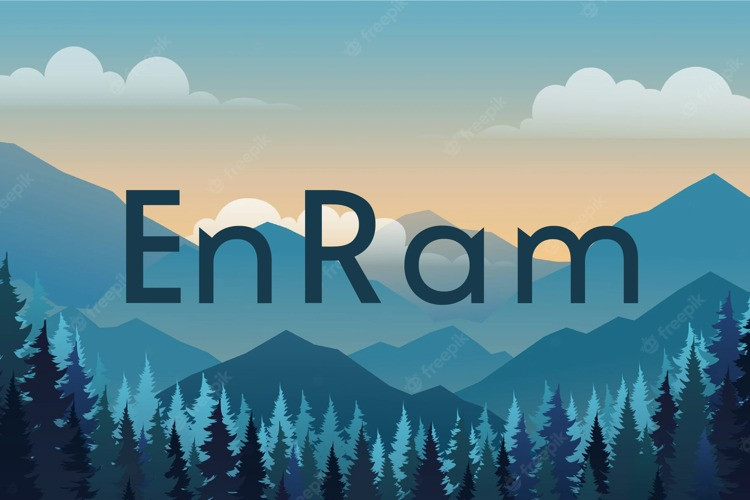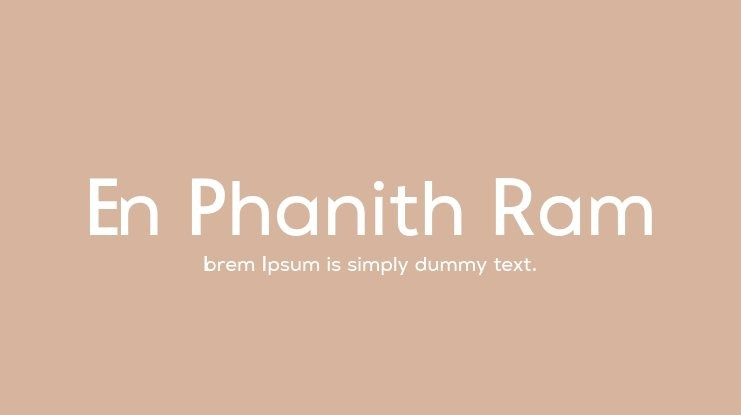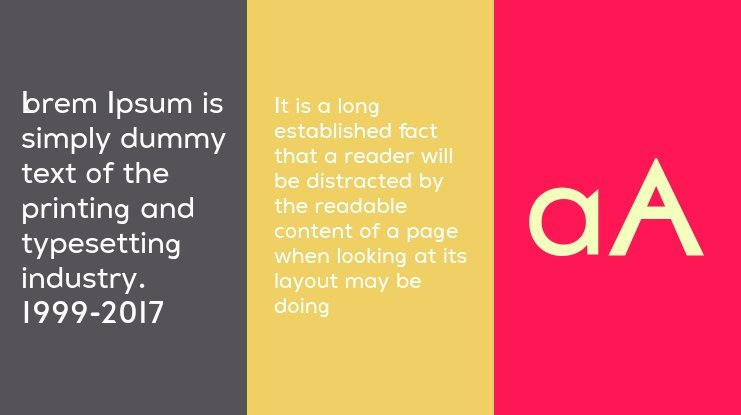
En Phanith Ram Sans Serif Font, this is a Sans serif basic font. It’s a professional version which was complicated hand-made and computer-generated graphics, and various revisions. After installing on the computer, you can create posters, web graphics, game graphics, t-shirts, videos, signs, logos and more. These fonts are 100% FREE for both personal and business usages. If you have any question or donate me, please feel free to contact me.
En Phanith Ram Font
| Designer Name: | Suon May Sophanith |
| Classification: | Sans Serif Fonts, Style / Aesthetic Fonts |